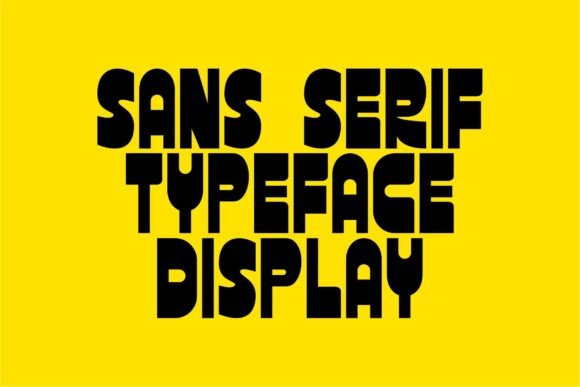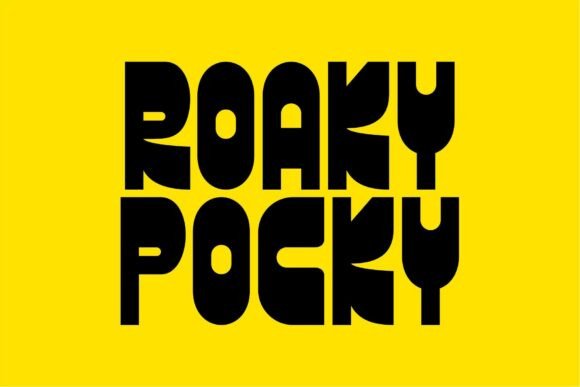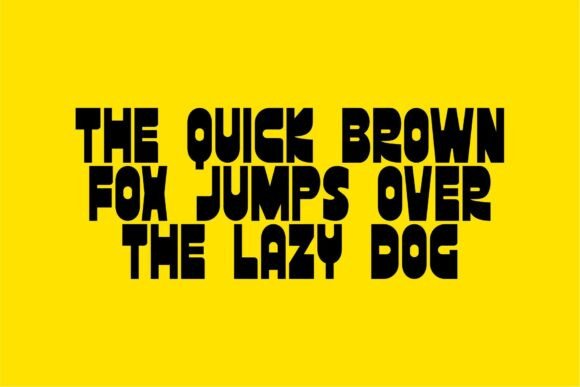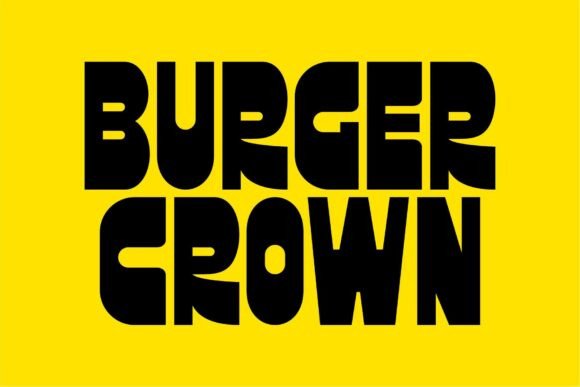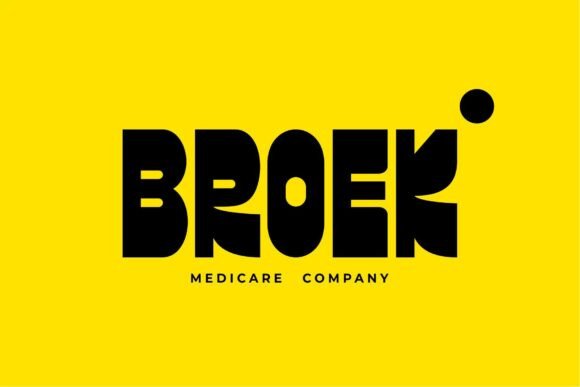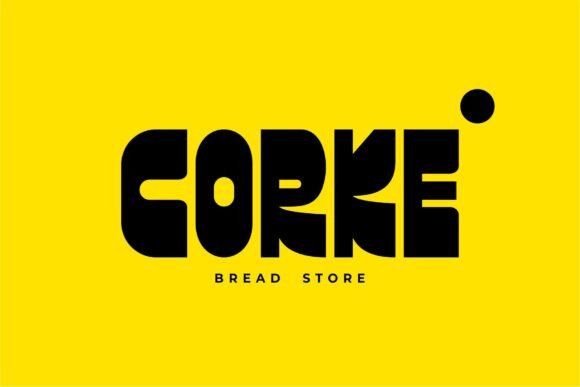
Command the Room with the Creak Font: A Bold and Unique Sans Serif Display Typeface
In the world of typography, a font can make or break a design. When it comes to making a statement, the Creak font is the ultimate powerhouse. This bold and unique sans serif display typeface is designed for maximum visual impact, making it perfect for avant-garde branding, brutalist architecture posters, and high-fashion editorial headers. With its ultra-thick, geometric letterforms and unexpected sharp cutouts, the Creak font exudes authority and modern sophistication.
The Anatomy of the Creak Font
Each character in the Creak typeface is a study in balance and negative space, making it a “hero” font for logos that need to remain iconic and memorable. The ultra-thick letterforms are carefully crafted to create a sense of gravity, grounding any design it touches. The sharp cutouts add an edgy touch, giving the font a futuristic and industrial feel. The heavy weight of the font ensures that it stands out, even in high-contrast environments.
Using the Creak Font for Maximum Impact
The Creak font thrives in high-contrast environments, particularly when used in large scales against minimalist backgrounds. This allows the font to take center stage, making a bold statement that demands attention. When paired with thin, monospaced fonts, the Creak typeface creates a striking typographic hierarchy that feels both futuristic and industrial. This makes it an exceptional choice for tech startups, luxury streetwear labels, and experimental fashion brands.
Design Applications for the Creak Font
The Creak font is versatile and can be used in a variety of design applications. Some of the most effective uses of the font include:
- Avant-garde branding: The Creak font is perfect for brands that want to make a bold statement and stand out from the crowd. Its unique and edgy design ensures that it will grab attention and leave a lasting impression.
- Brutalist architecture posters: The font’s bold and geometric letterforms make it a natural fit for brutalist architecture posters. The Creak font adds a touch of modern sophistication to any design.
- High-fashion editorial headers: The Creak font is also perfect for high-fashion editorial headers. Its luxurious and edgy design ensures that it will add a touch of sophistication to any fashion publication.
- Tech startups: The Creak font is an excellent choice for tech startups that want to make a bold statement. Its futuristic and industrial design ensures that it will appeal to a modern and tech-savvy audience.
- Luxury streetwear labels: The font’s bold and edgy design makes it a natural fit for luxury streetwear labels. The Creak font adds a touch of sophistication and modernity to any design.
Tips for Pairing the Creak Font
When pairing the Creak font with other fonts, it’s essential to choose fonts that complement its bold and edgy design. Some tips for pairing the Creak font include:
- Pair with thin, monospaced fonts: Pairing the Creak font with thin, monospaced fonts creates a striking typographic hierarchy that feels both futuristic and industrial.
- Use a minimalist background: Using a minimalist background allows the Creak font to take center stage, making a bold statement that demands attention.
- Experiment with contrasting fonts: Experimenting with contrasting fonts allows you to create a unique and visually appealing design that showcases the Creak font’s versatility.
| Font Name | Creak Font |
| Author | suhadidesign |
In conclusion, the Creak font is a bold and unique sans serif display typeface that is designed for maximum visual impact. Its ultra-thick, geometric letterforms and unexpected sharp cutouts make it perfect for avant-garde branding, brutalist architecture posters, and high-fashion editorial headers. With its versatility and edgy design, the Creak font is an exceptional choice for designers and crafters who want to make a statement. Whether you’re a tech startup, luxury streetwear label, or experimental fashion brand, the Creak font is sure to command the room and leave a lasting impression.